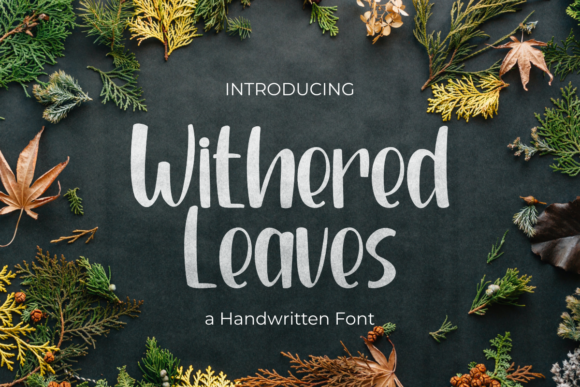
Journey into an Enchanting Realm of Elegance: Discover Withered Leaves Font, the Script of Dreams for Your Special Day
Unleash the allure of Withered Leaves Font, a breathtaking script font that captures the essence of romance and sentimentality. Meticulously crafted by the visionary minds at Rvandtype, this font is a symphony of delicate strokes and flowing curves, conjuring a vision of enchanted forests and whispered promises.
As its name suggests, Withered Leaves Font draws inspiration from the beauty of nature, evoking the fragile grace of autumn leaves dancing in the gentle breeze. Each letter is a testament to the intricate artistry of its creation, adorned with delicate flourishes and subtle variations that add depth and character to your words.
Indulge in the versatility of Withered Leaves Font, a font that adapts effortlessly to a myriad of creative endeavors. Whether you're crafting heartfelt wedding invitations, designing elegant cards for special occasions, or seeking to infuse your creative projects with a touch of romance, Withered Leaves Font is your steadfast companion.
With its inherent charm and timeless appeal, Withered Leaves Font is the perfect choice for those seeking to add a touch of enchantment to their designs. Its ability to effortlessly blend with a variety of aesthetics makes it a versatile tool for both personal and professional projects.
As you weave your words into existence using Withered Leaves Font, you'll find yourself captivated by its ability to transform ordinary text into something extraordinary. Its delicate lines and enchanting flow will breathe life into your words, creating a visual masterpiece that speaks to the heart.
So, embark on a journey of creativity with Withered Leaves Font, the script font that will elevate your designs to new heights of elegance and charm. Let your imagination soar as you explore the boundless possibilities that await you with this enchanting font.